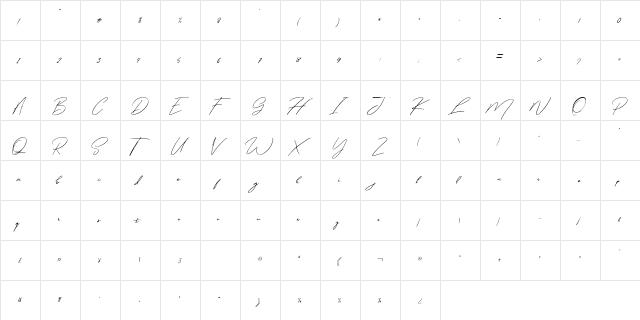
Winterfellia Free Personal Use Regular
Design Context for Winterfellia Free Personal Use Typeface
Winterfellia Free Personal Use is a composed and adaptable typeface that performs quietly and consistently across a wide range of design contexts.